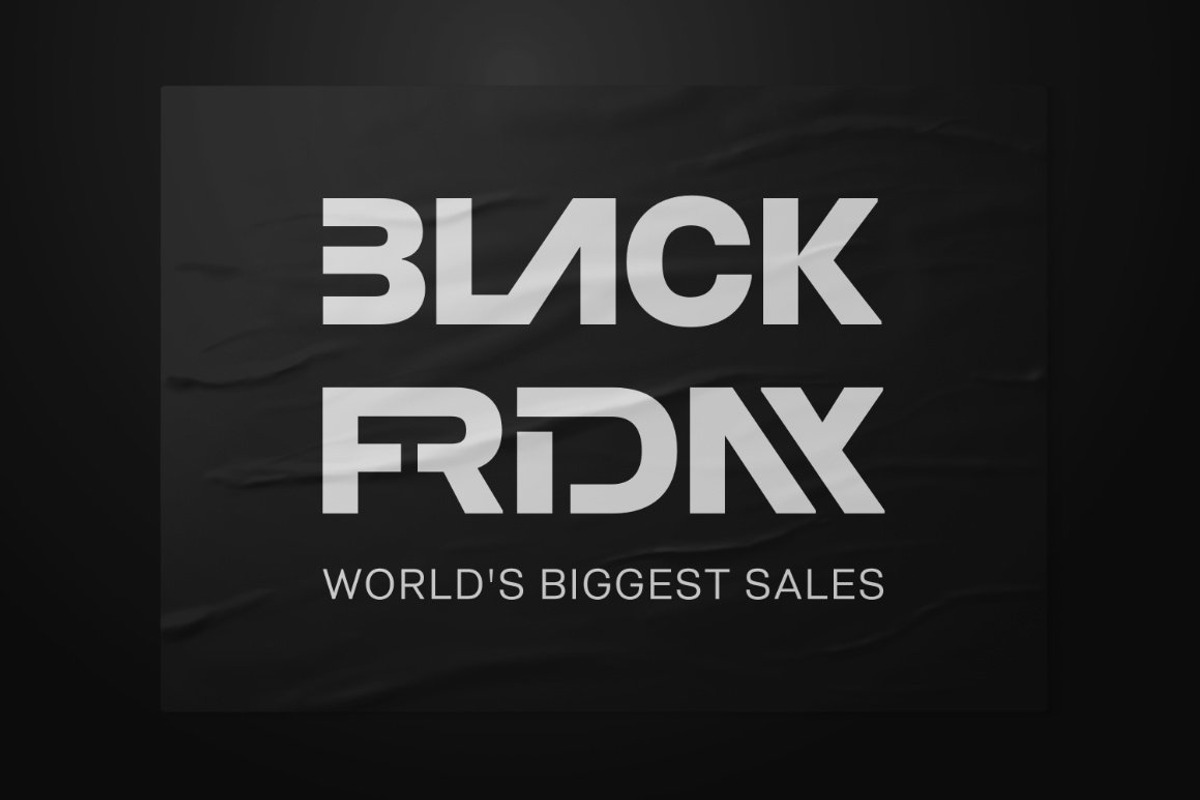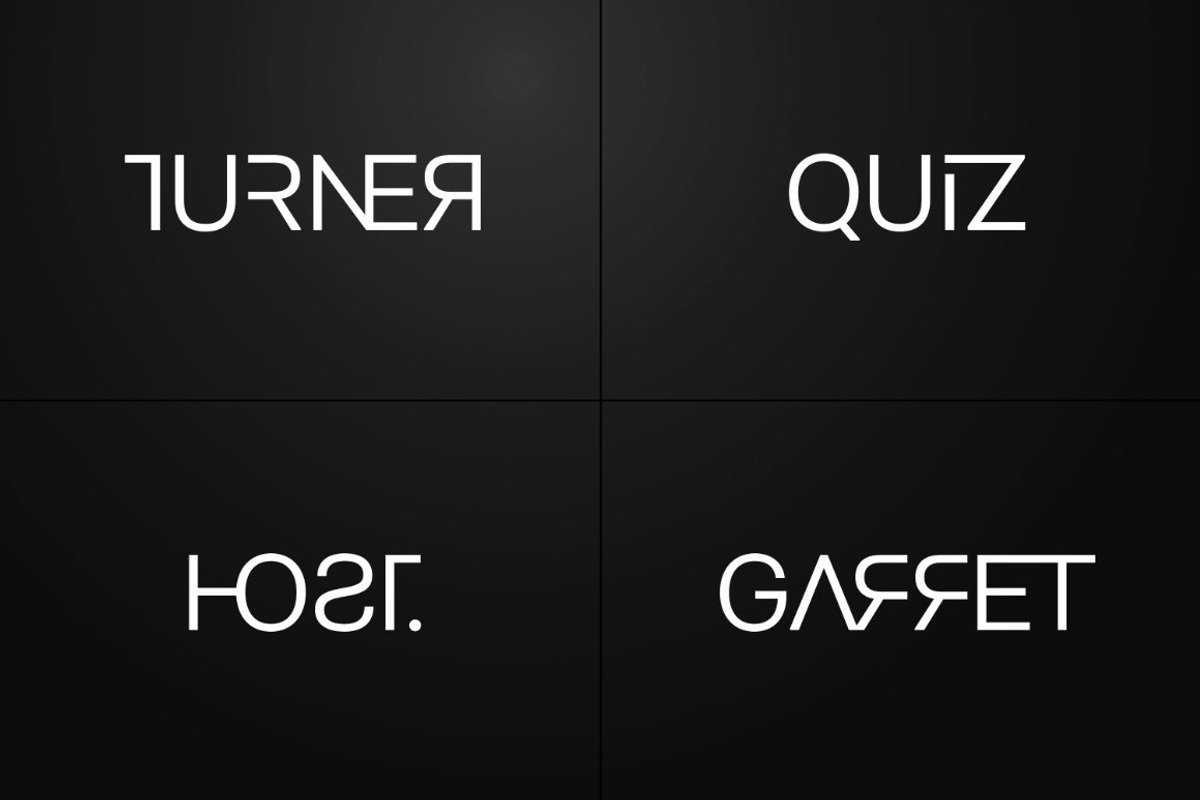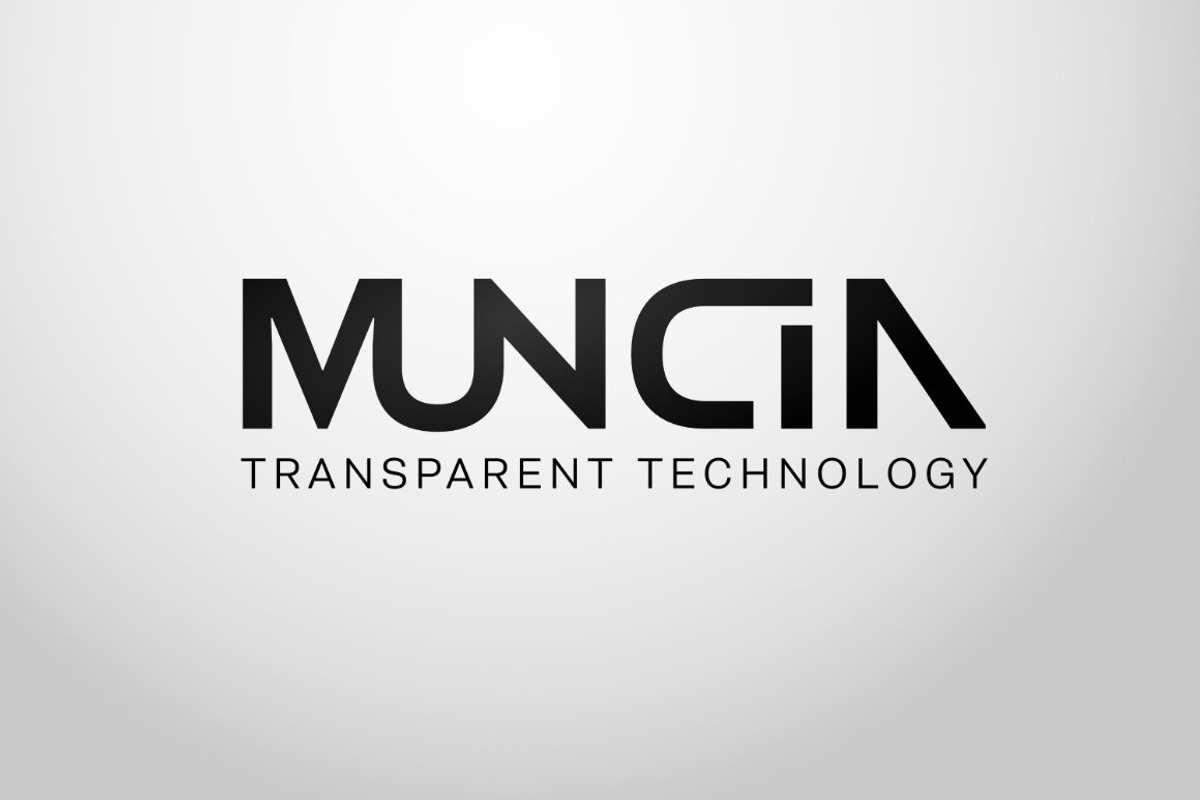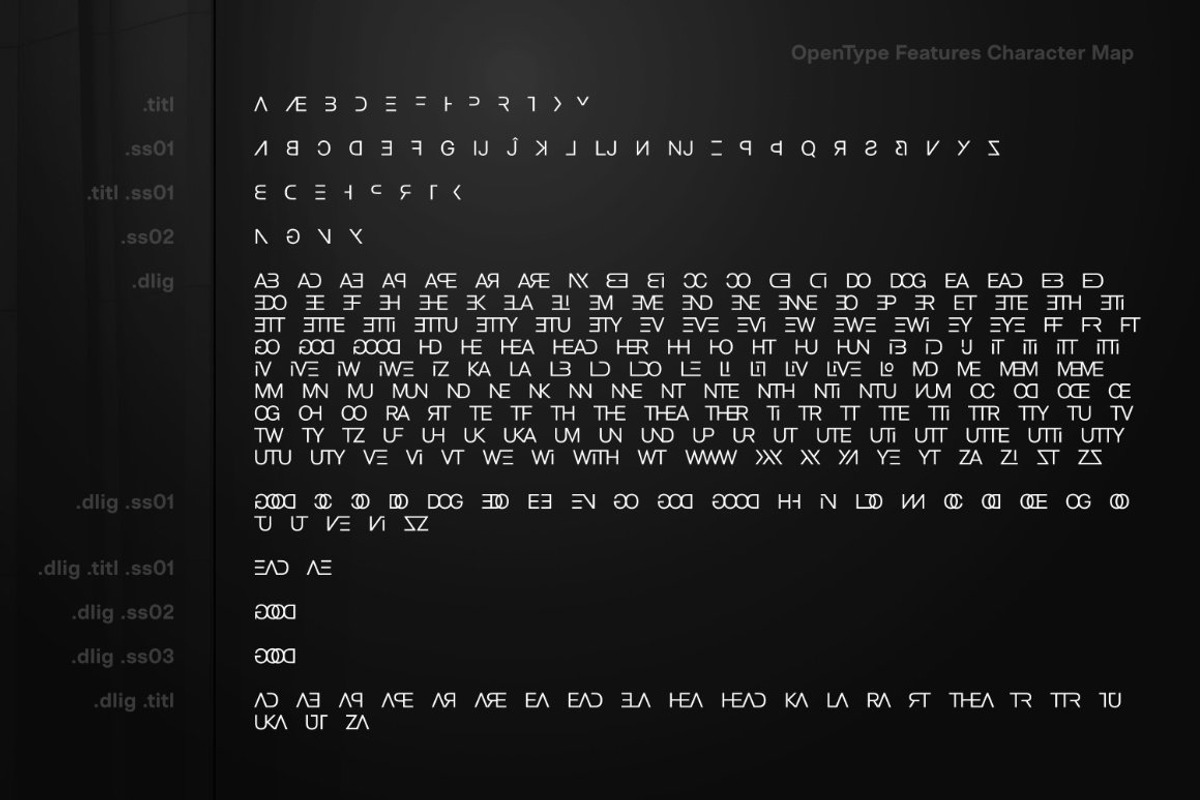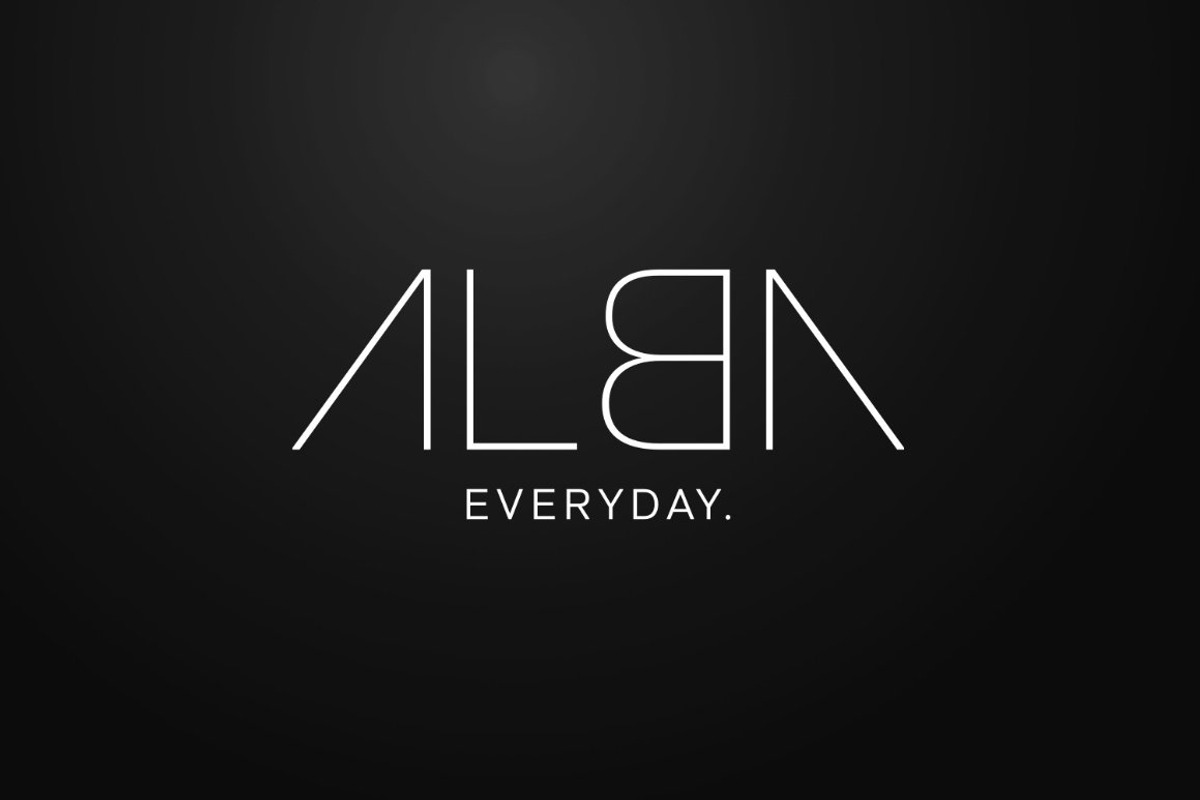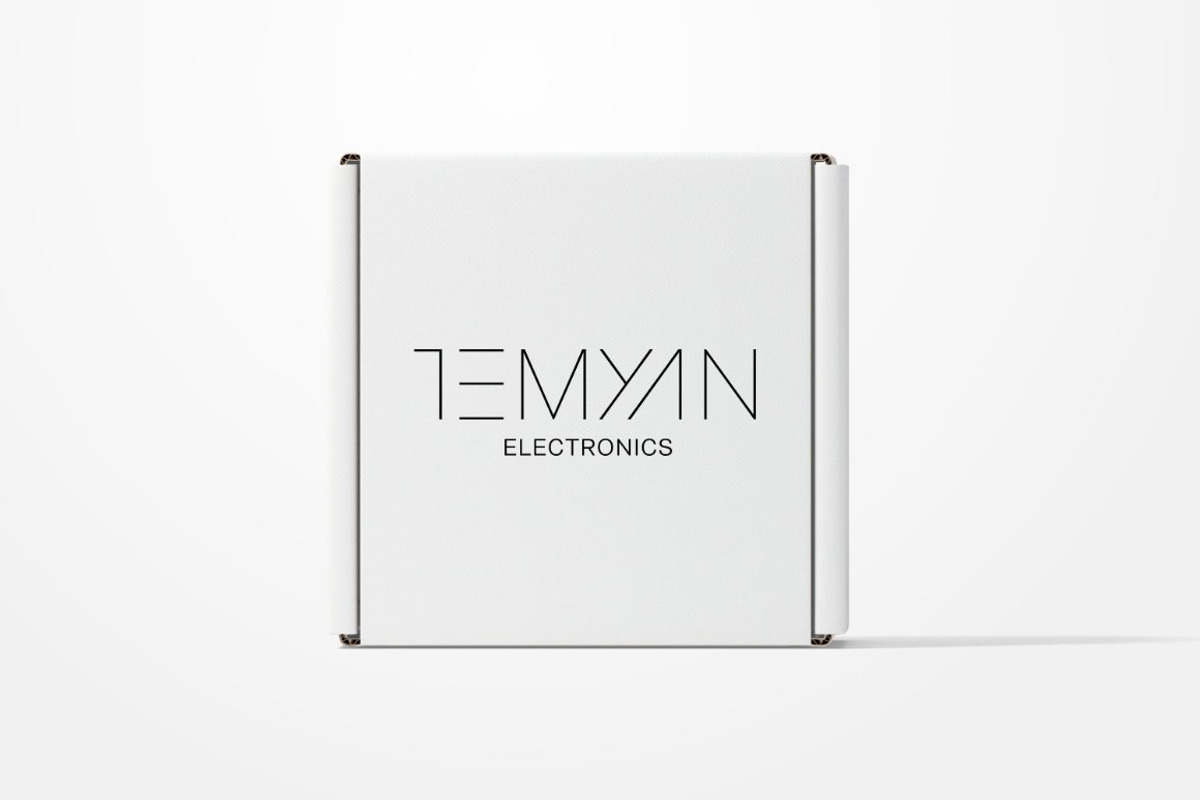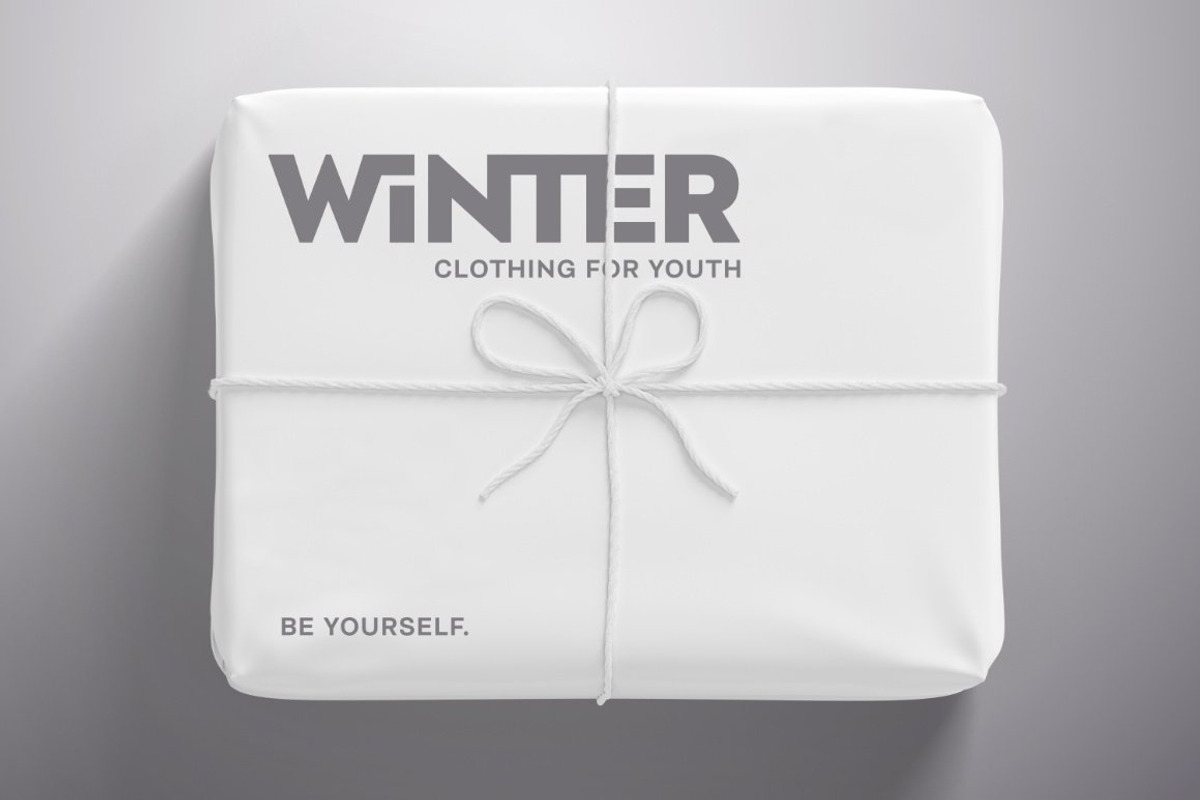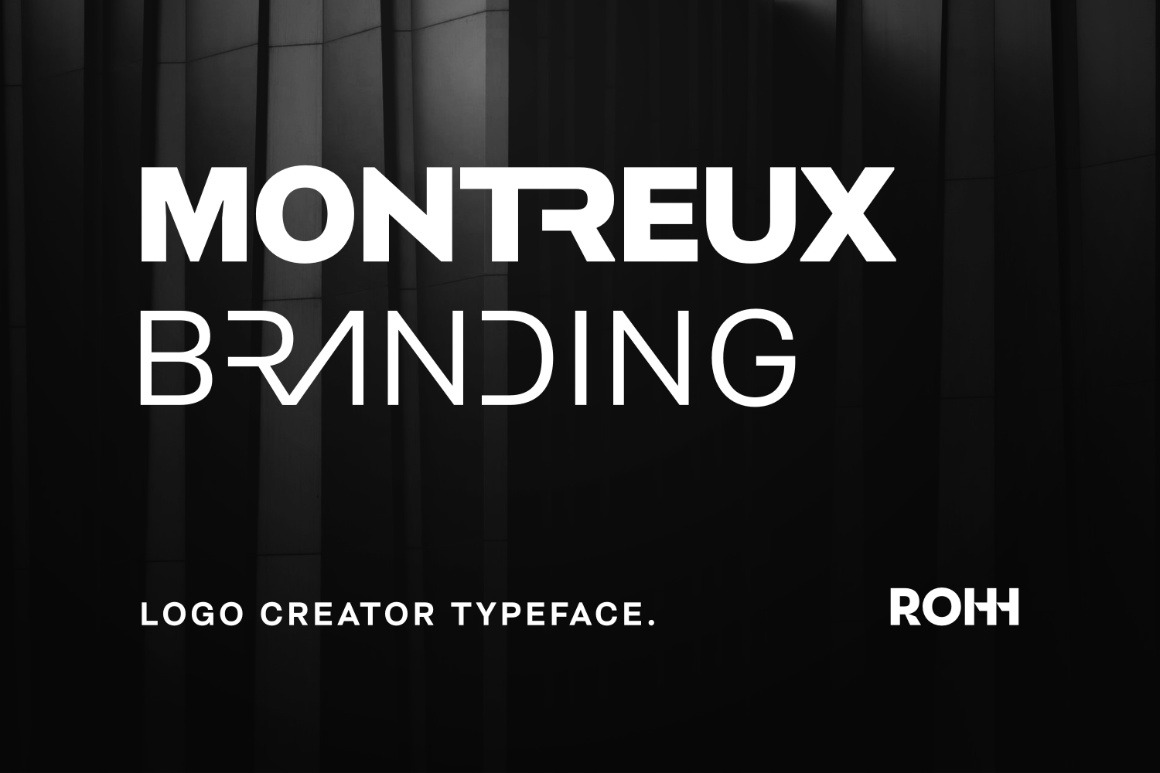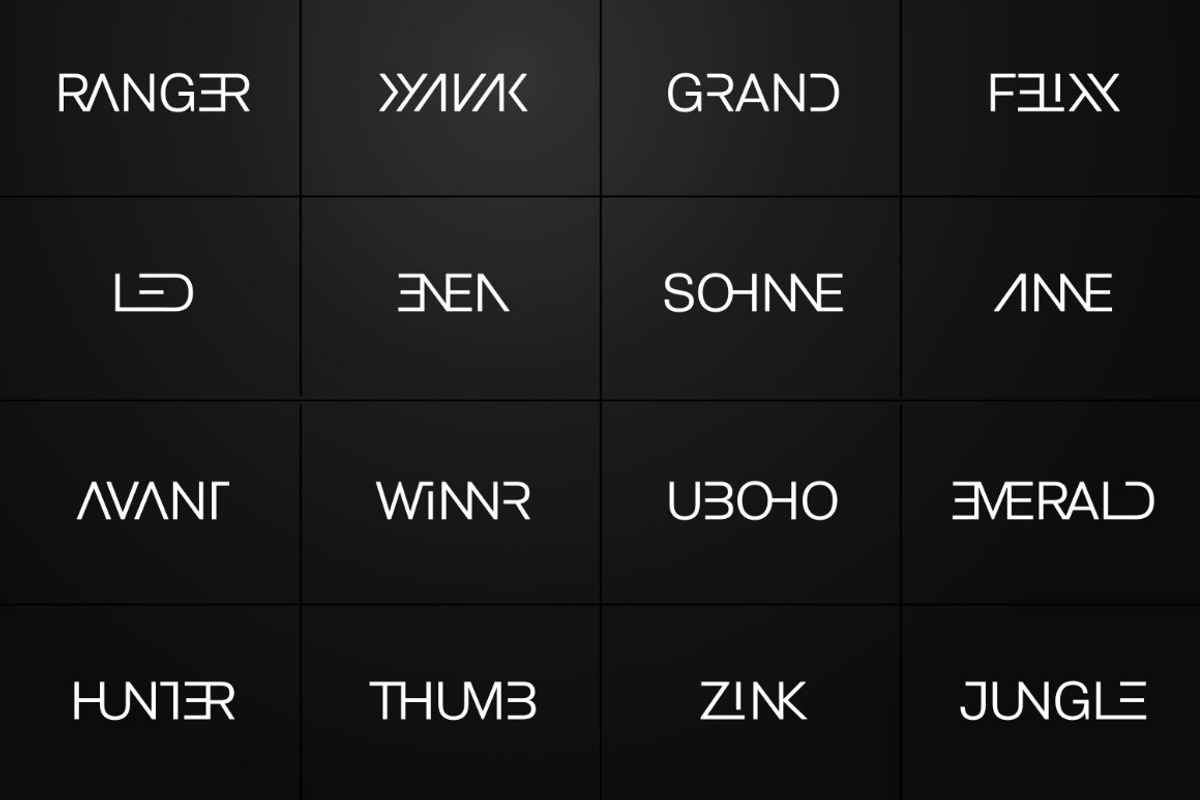
Montreux Branding Creator Typeface
Montreux Branding – Logo Creator Typeface
Montreux Branding is a modern logotype creation tool. It is an uppercase family of 4 fonts packed with features like stylistic alternates and tons of discretionary ligatures (over 270 in total).
The family makes designing impactful logotypes a real pleasure thanks to its wide set of OpenType features crafted especially for that purpose, making your life easier, allowing you to accomplish your projects in less time.
Sharp, modern and precise lines of Montreux Branding will give your designs a unique character with a lot of personalities, making them stand out of the crowd.
The family is an extension of Montreux Grotesk, the bestselling sans serif crafted as an exclusive product only available here. Together with the original superfamily, Montreux Branding lets designers create complete large branding systems and experiences, covering the needs of all industries.
- 4 weights (Thin, Regular, Bold, ExtraBold)
- Over 270 alternates and ligatures designed for logo creation
- Over 1000 glyphs (uppercase, figures, punctuation, symbols, alternates, ligatures)